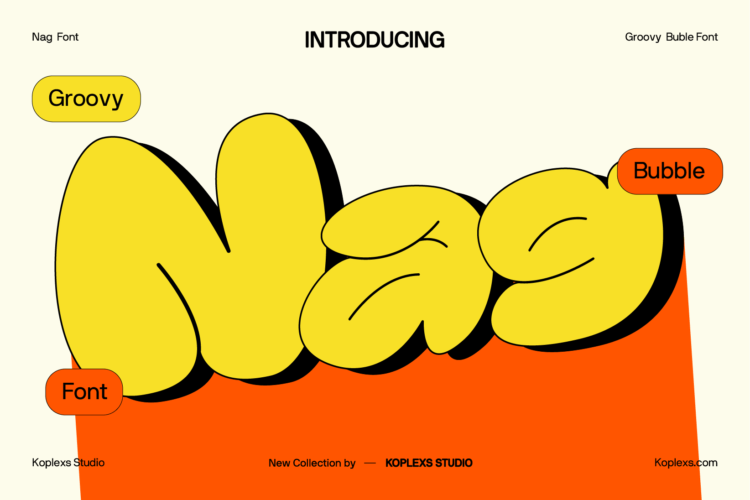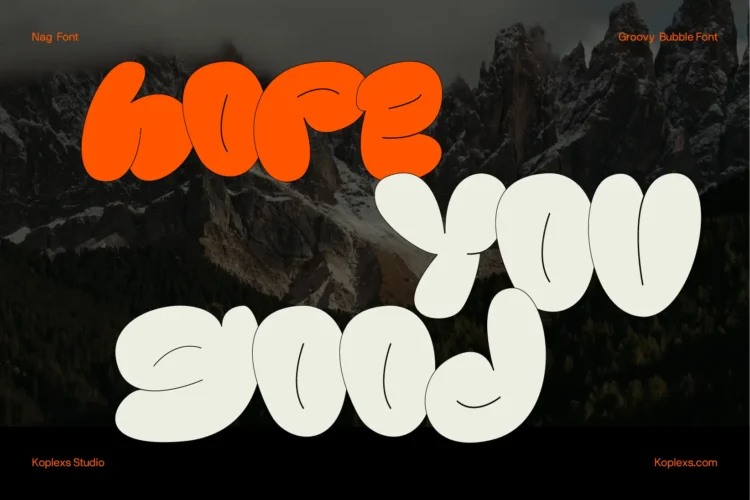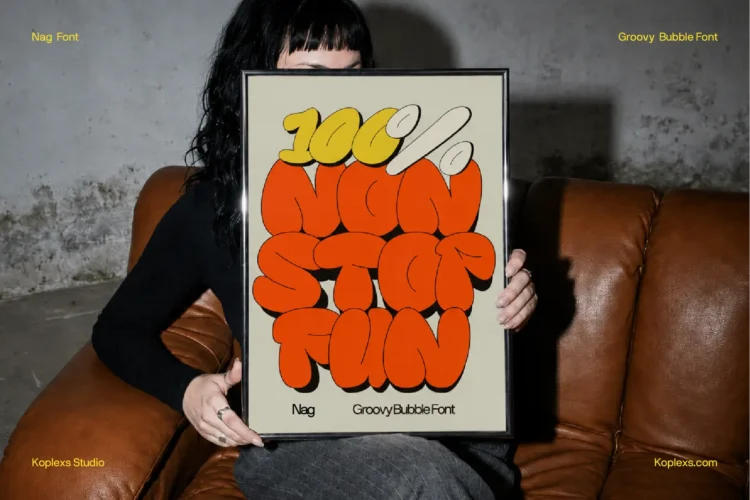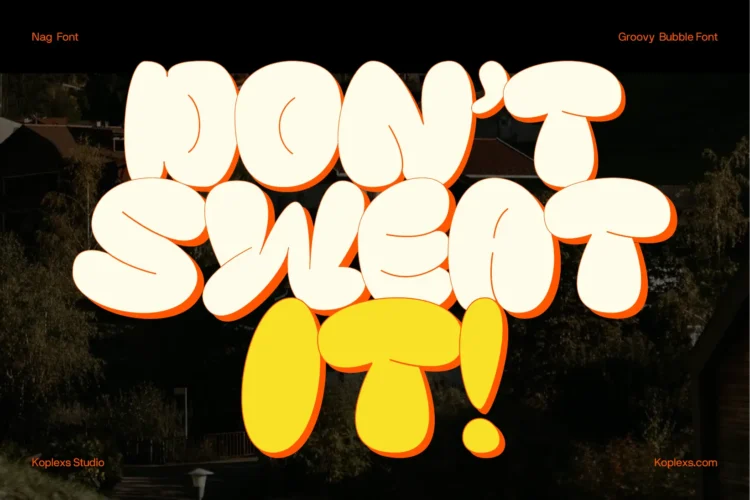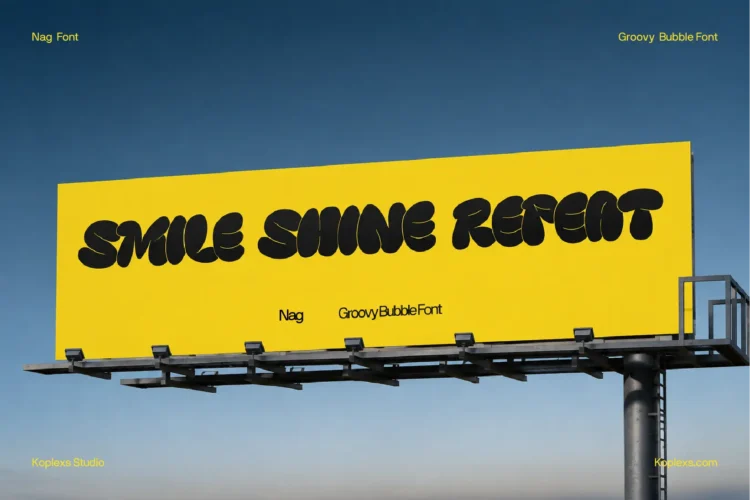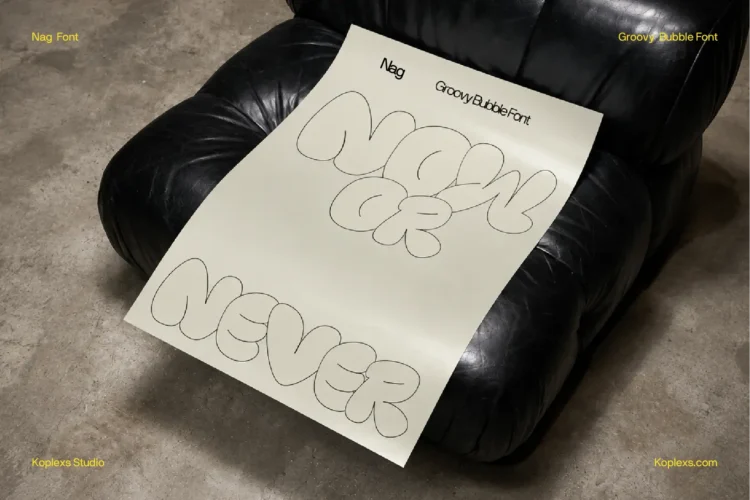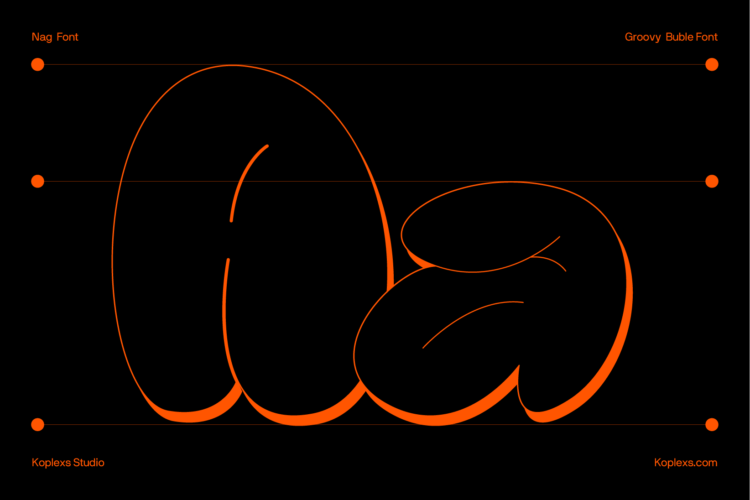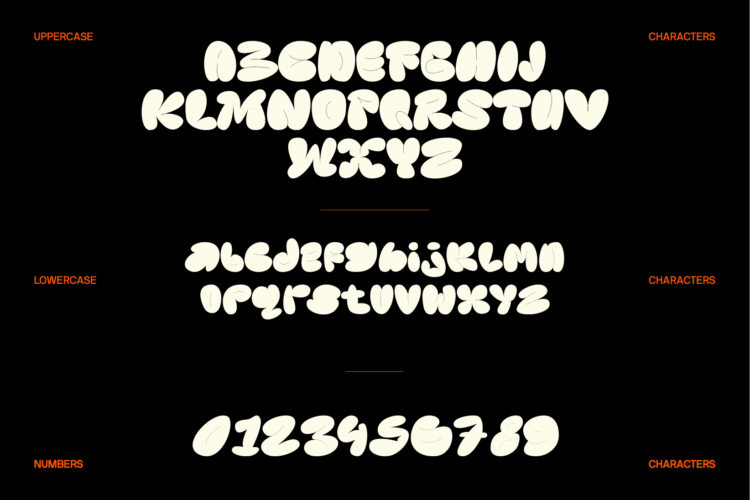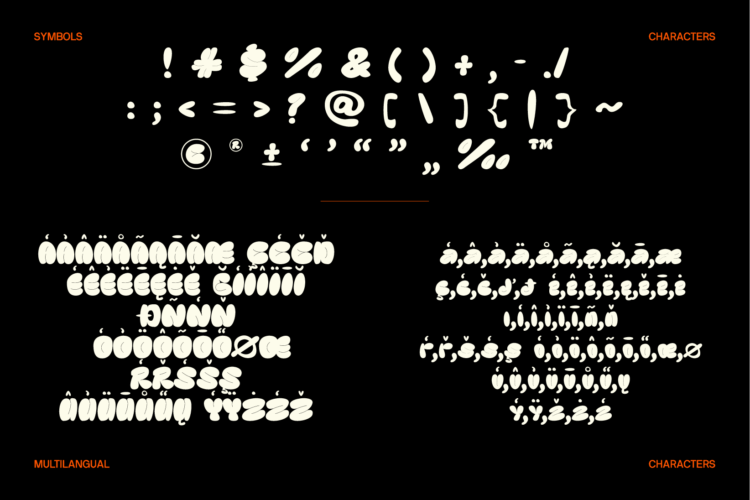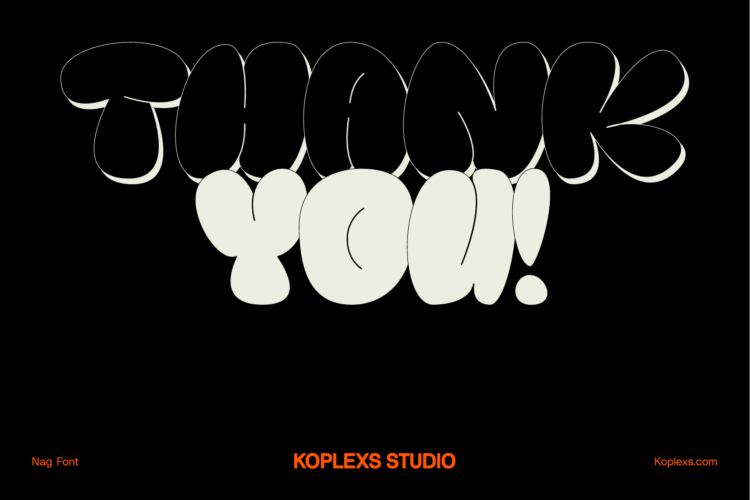
Nag Font | Retro Groovy Bubble Font for Playful Designs
Nag Font is a retro groovy font by Koplexs Studio with plump bubble letters, soft edges, and narrow inner openings. Its slightly irregular shapes give short words a cheerful, almost inflated look, making it a fun choice for designs that need a little extra personality.
This bubble font feels right at home in oversized headlines, stacked slogans, and playful brand graphics. Set it large to give those chunky curves room to shine. Try bright colors for an upbeat feel or a simple two-color palette for a laid-back retro look.
Perfect For These Design Styles
- Posters, billboards, and bold campaign headlines.
- Playful logos and brand wordmarks.
- T-shirt graphics, tote bags, and stickers.
- Product packaging and eye-catching labels.
- Album covers, party invitations, and social media graphics.